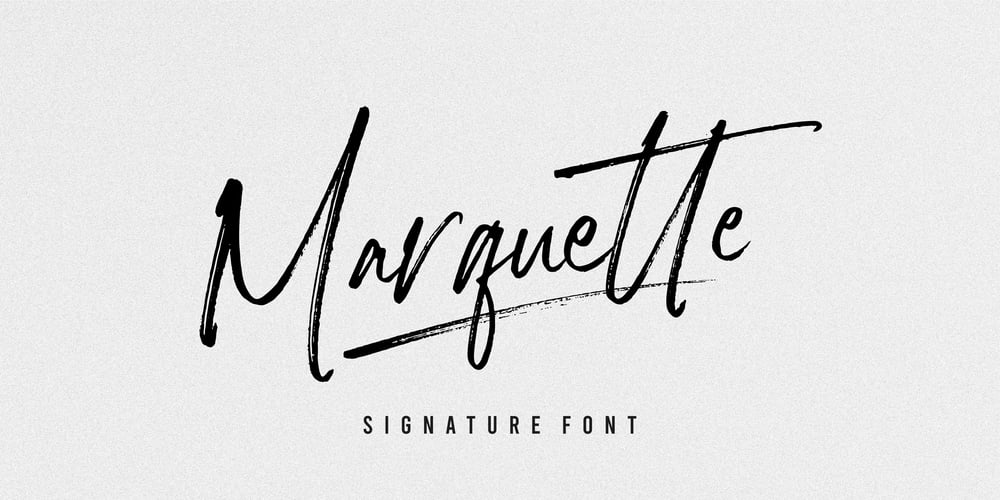
Marquette Font Family was designed by Annas Alam Yahya and published by Letteralle. Marquette contains 3 styles and family package options. Marquette is a rustic font with sharp scratch characters. Marquette is very suitable for signature logos, branding, merch, ads, book title, packaging, etc. With this font each word produced will give its own uniqueness.Marquette includes 3 weights:- Marquette Regular: The main font with Uppercase, Lowercase, Number, Punctuation, and also multilingual support.- Marquette Alternate: Besides you can access alternative characters from the main font through the OpenType features, you can also install this alternative fonts. Marquette Alternate will give you other options for a character, which of course will add a natural impression.- Marquette Swashes: A set of 14 swashes, you just have to install it, then type the letters A – N to make swashes.Marquette also has a some of ligatures that will enhance the natural impression.That’s it! Please do let me know what you think, feel free to comment if there are issues or queries.Enjoy the Font,Thank You!